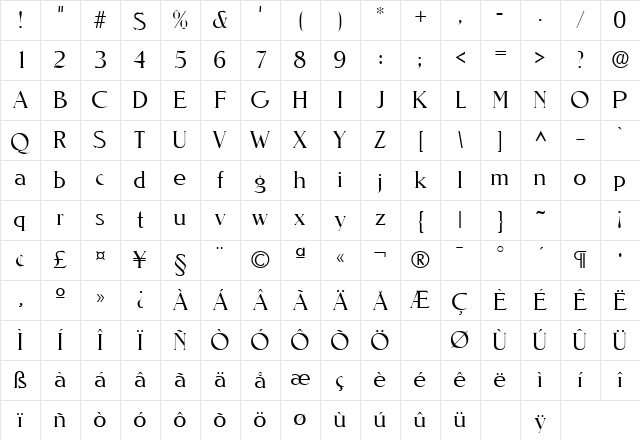
Sierra Light SF Regular Free Font
Sierra Light SF Regular
Design Context for Sierra Light SF
Sierra Light SF is a composed and adaptable typeface that performs quietly and consistently across a wide range of design contexts. Its slender proportions lend an understated elegance to any composition.